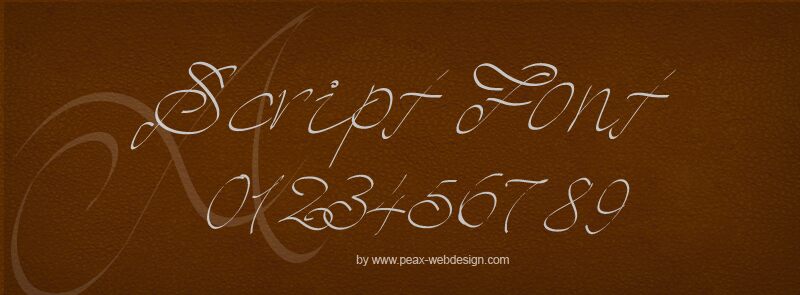
PW Script by Peax Webdesign is a free handwritten font with the sweeping looseness of an enlarged personal signature. Its very fine strokes change weight abruptly, with tall loops, open curves, and long lines that dart well beyond the letters.
Its fashion-editorial character suits clothing campaigns, wedding stationery, and magazine covers, especially alongside expressive photography or delicate line art. On beauty packaging and boutique branding, the extended flourishes can become part of the product identity, echoing ribbons, thread, or pen marks used elsewhere in the artwork.